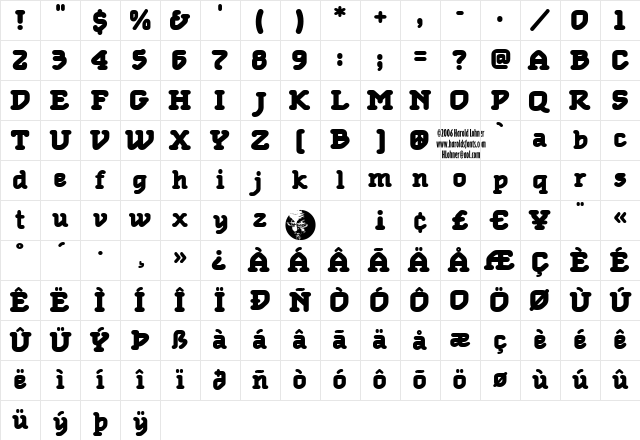
Foam Bold Regular Free Font
Foam Bold Regular
Design Context for Foam Bold
Foam Bold is a composed and adaptable typeface that performs quietly and consistently across a wide range of design contexts. Its bold stroke weight gives it real presence on the page.